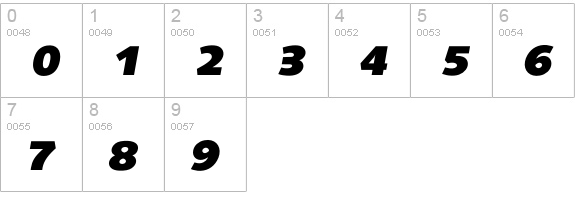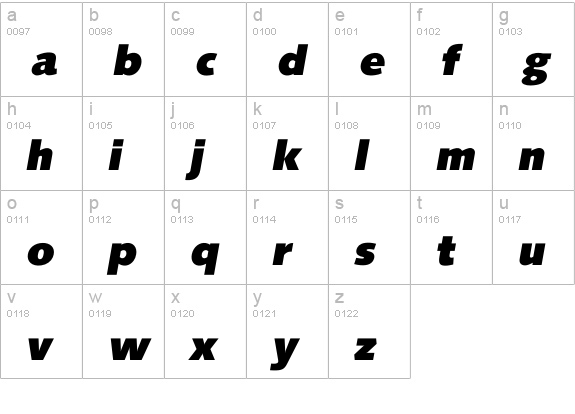
Isaxony Heavy is a heavy, high-impact variant in the Isaxony typeface family \xE2\x80\x94 well suited to high-impact headlines, posters, and display advertising.
Introducing Isaxony Heavy, a striking and bold font that commands attention with its robust and powerful presence. This typeface exudes a sense of strength and confidence, making it perfect for projects that require a strong visual impact. Isaxony Heavy features thick and decisive letterforms, with angular edges that create a sense of sharpness and precision. Its generous weight adds a touch of authority, making it a great choice for headlines, logos, posters, and other designs that need to make a bold statement. What sets Isaxony Heavy apart is not just its stunning aesthetics, but also its versatility. This font seamlessly blends modernity with a touch of classic elegance, making it suitable for a wide range of applications. Whether you're working on a contemporary branding project or a vintage-inspired design, Isaxony Heavy is sure to deliver. And the best part? Isaxony Heavy is available for free download exclusively at FontsMarket.com. That's right, you can get your hands on this exceptional font without spending a dime. So unleash your creativity and elevate your designs with the power and grace of Isaxony Heavy. Don't miss out on this opportunity to enhance your projects with a font that is both visually captivating and freely accessible.